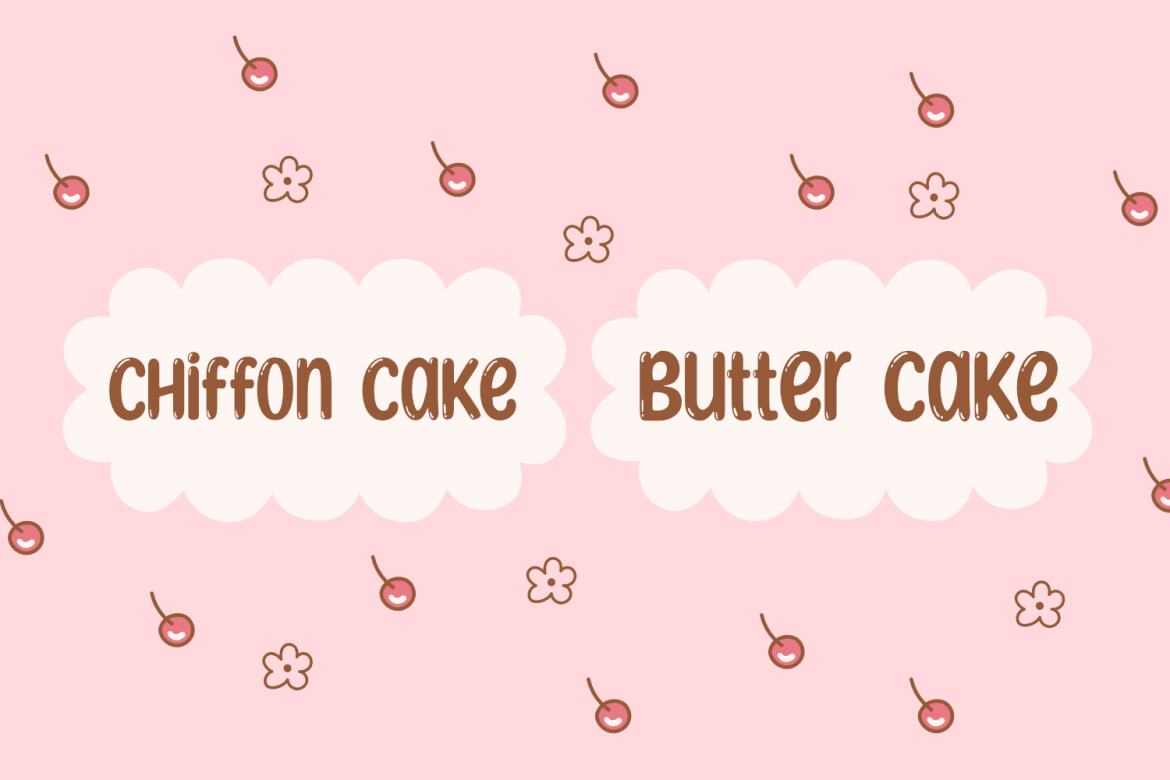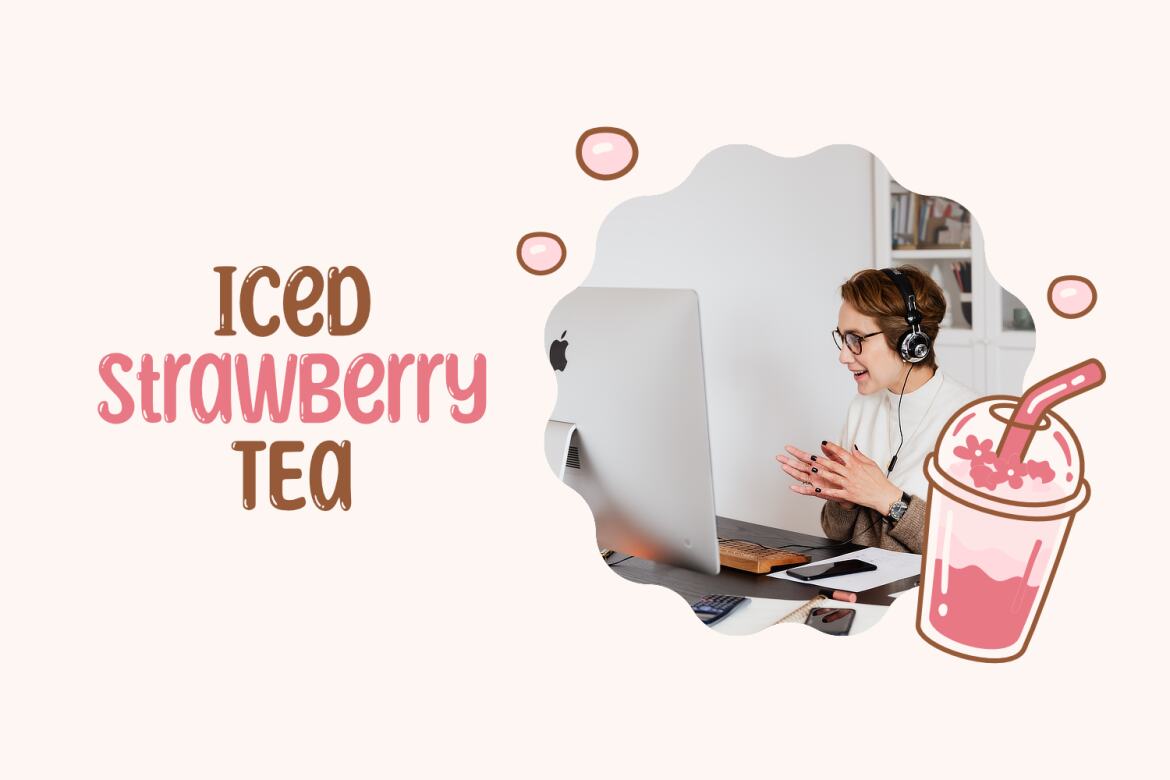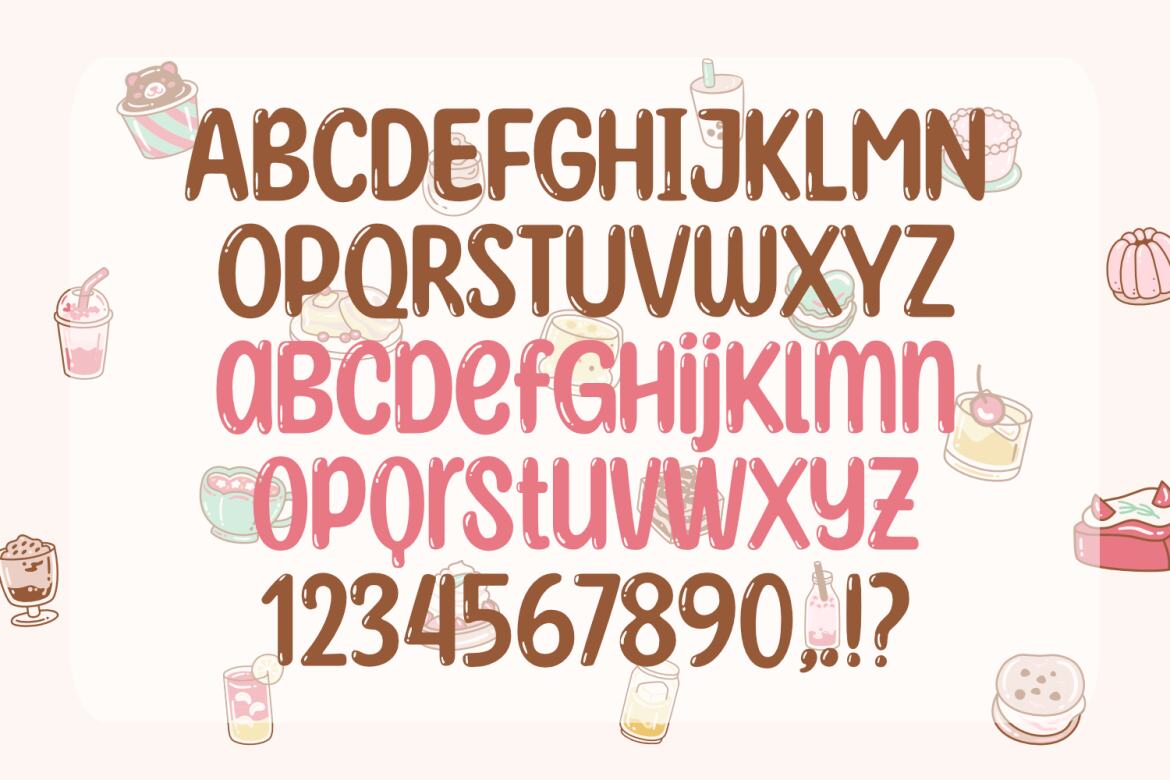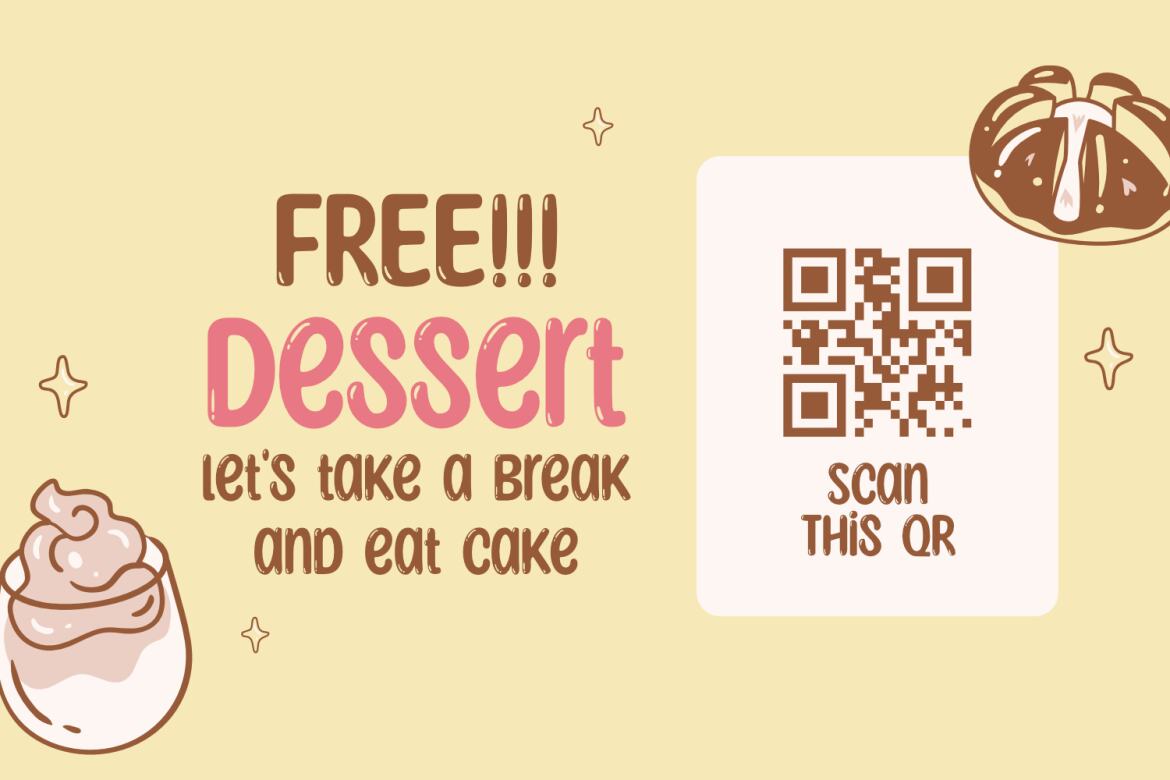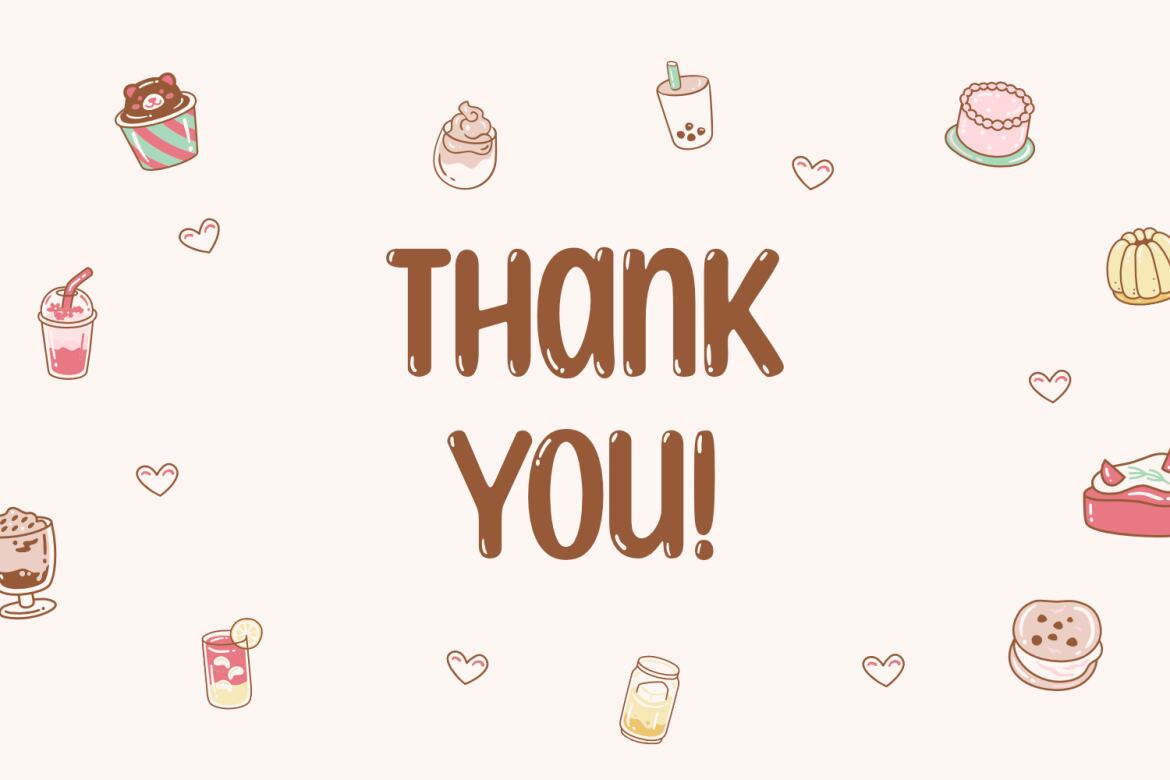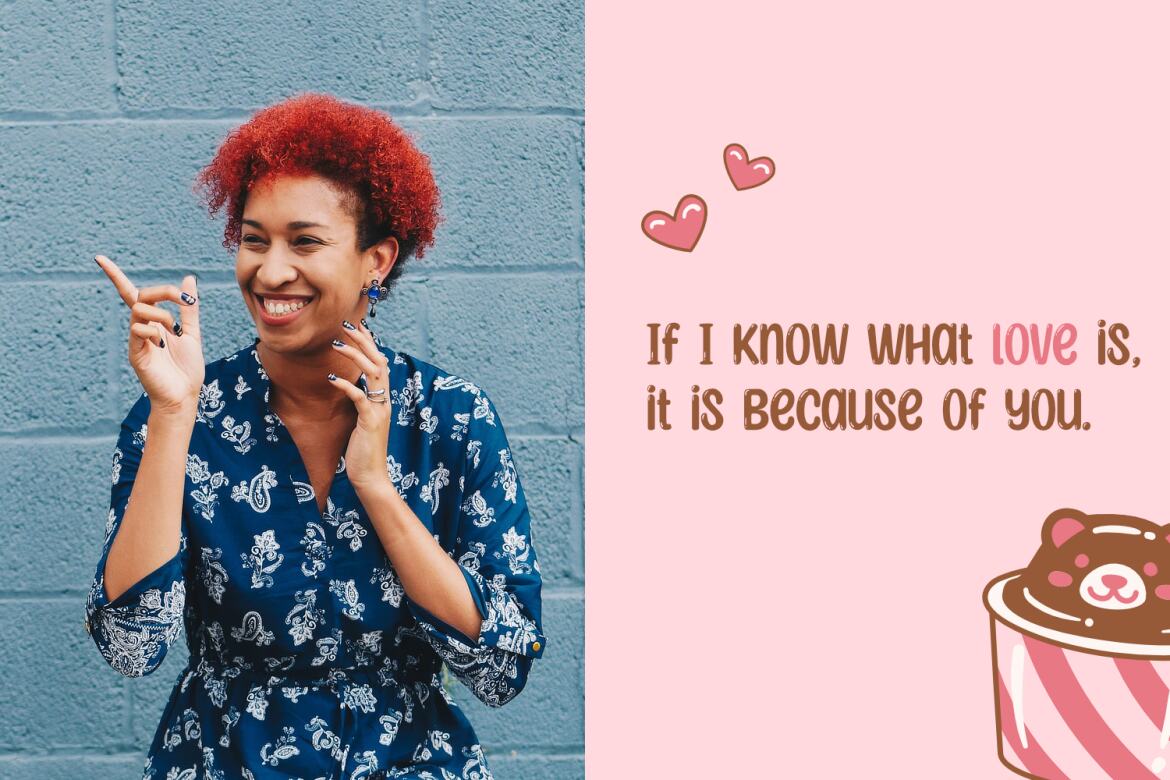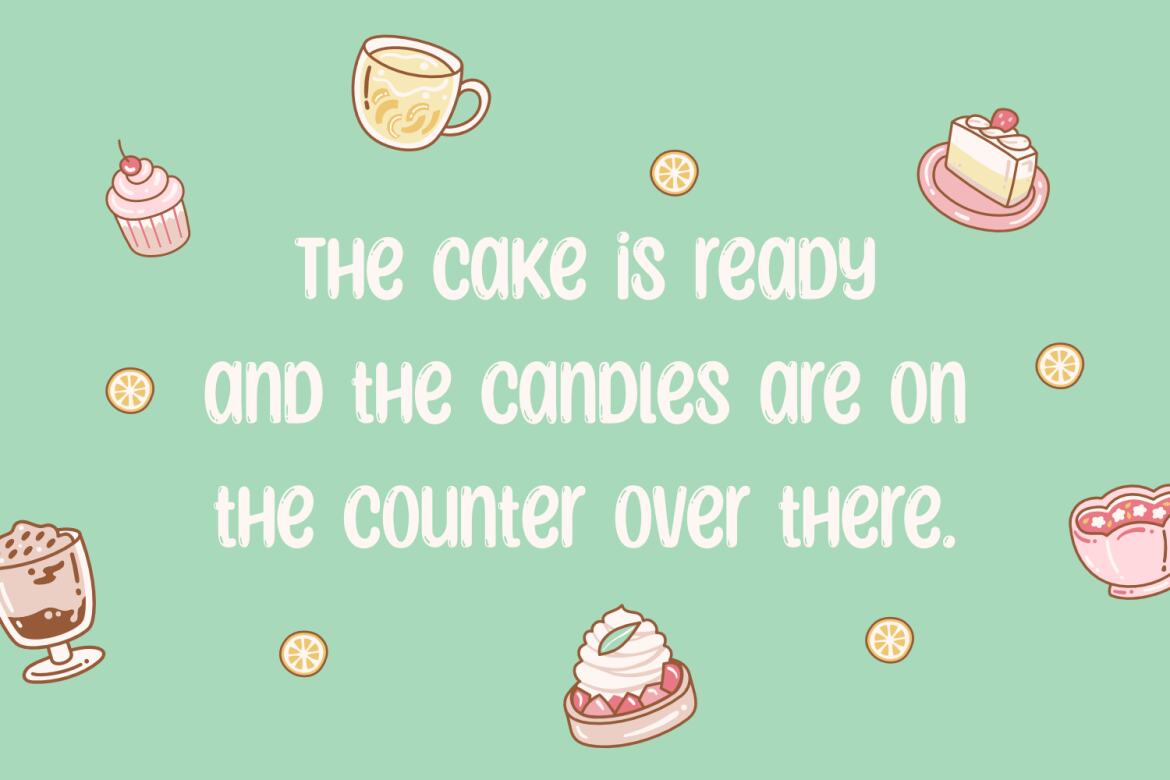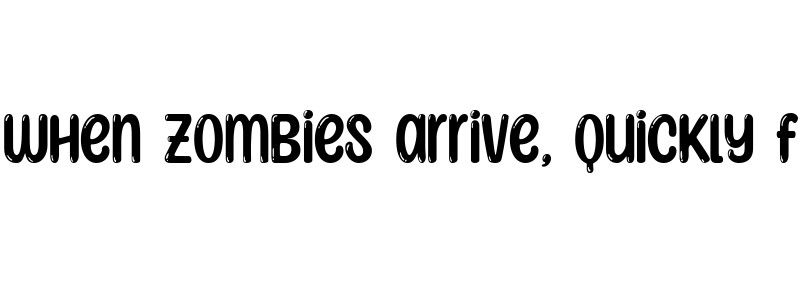
Sunny Spells - a Quirky FREE Font
Sunny Spells is a shiny and quirky font. Sunny Spells are perfect for adding accents and making your designs stand out. This font is very suitable for flyers, banners, social media posts, school projects, logos, and branding.